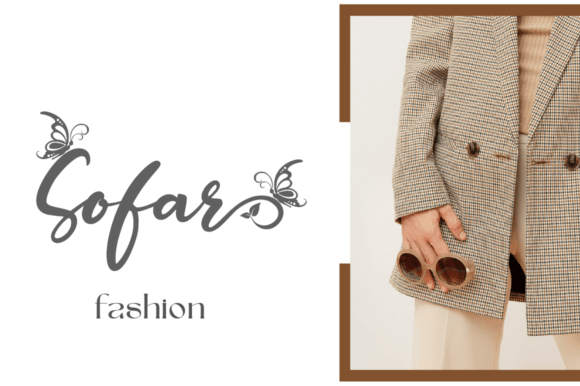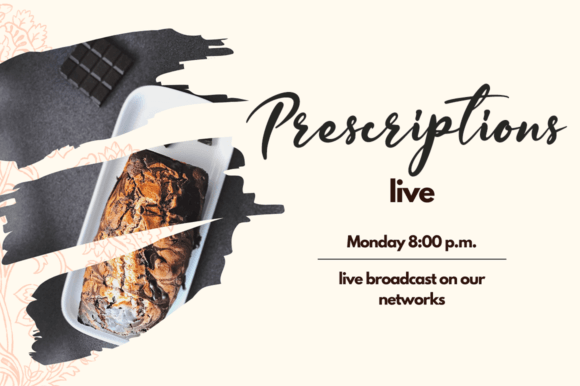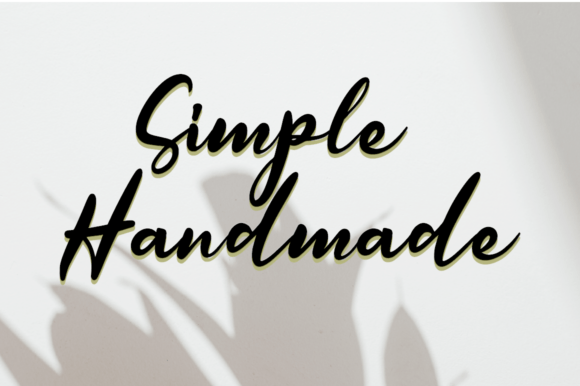
Introduction to Safrina Font
Do you remember that moment when you stumbled upon the perfect font for your creative project? The one that brings your design to life, adding a touch of elegance and sophistication? For many designers, that moment is often elusive, but with the introduction of the Safrina Font, you can finally say goodbye to font frustration. This stylish and incredibly elegant script font is a game-changer in the world of design.
Whether you’re working on a wedding invitation, a thank you card, or a logo for a business, Safrina Font is the perfect design resource to elevate your project. Its high-quality, transparent background makes it easy to work with, and its free download feature means you can access it without breaking the bank. With Safrina Font, you’ll be able to create stunning designs that leave a lasting impression.
Key Features of Safrina Font
- High-quality font with a unique, elegant design, ideal for creative projects and design resources.
- Features a transparent background, allowing for seamless integration with various design elements.
- Includes a range of font sizes and resolutions, making it suitable for various design applications.
- Designed to be highly legible, even at small font sizes, making it perfect for body text and headings.
- Available in multiple weights and styles, allowing designers to customize their design resources to suit their needs.
Honest Review: Safrina Font
As a designer, I’m always on the lookout for high-quality design resources to elevate my creative projects. Recently, I stumbled upon the Safrina Font, and I’m excited to share my honest review with you.
- ✨ The Safrina Font is incredibly versatile, suitable for a wide range of design projects, from logos to typography.
- ✨ The font features a beautiful, elegant design with a transparent background, making it perfect for overlaying on images or videos.
- ⚠️ The font is not suitable for large-scale text, as it can become difficult to read at certain sizes.
- ⚠️ The font is only available in a limited number of weights, which may not be ideal for designers who require a wider range of options.
Overall, I’m impressed with the Safrina Font’s high quality and versatility. While it may have some limitations, it’s an excellent resource for designers who need a beautiful, elegant font for their creative projects.
Getting the Most Out of the Safrina Font
For the best results, use the Safrina Font in conjunction with a high-quality image or design element.
Experiment with different font sizes, colors, and styles to find the perfect combination for your creative project.
The Safrina Font is ideal for:
Wedding invitations and stationery
Business cards and marketing materials
Photography and design portfolios
Any project that requires a high-quality, elegant font with a transparent background.